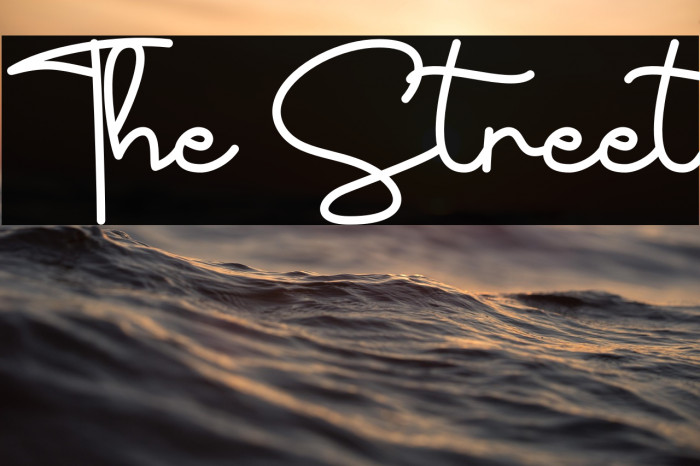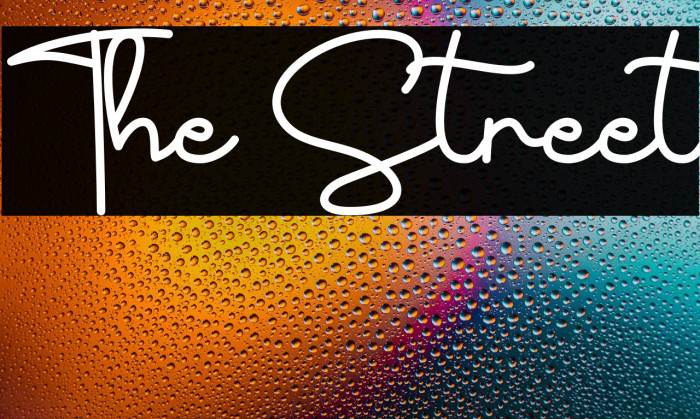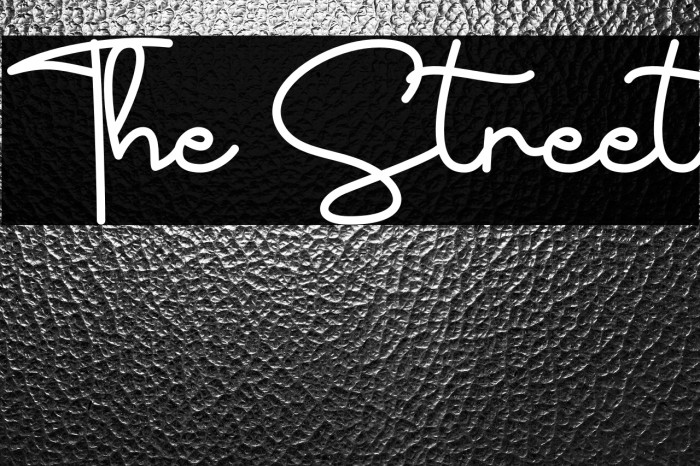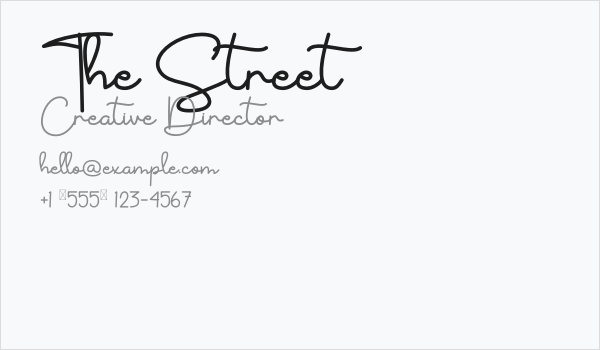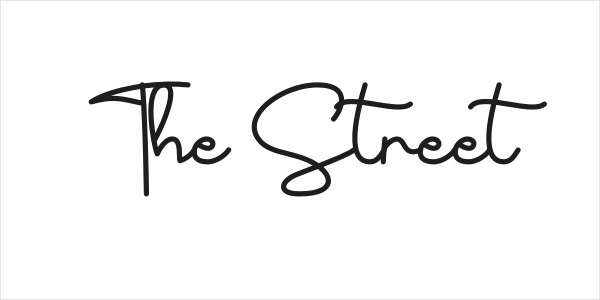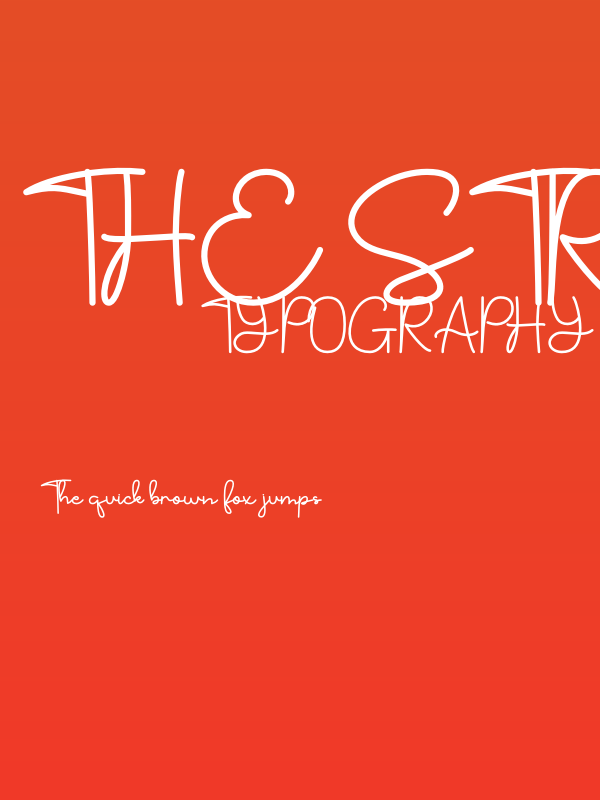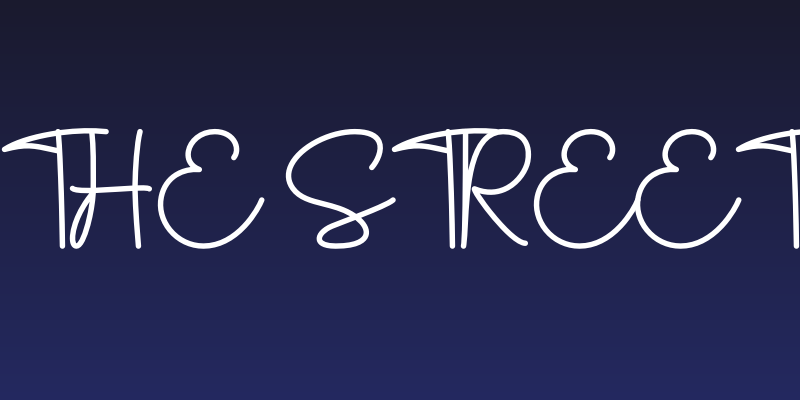
The Street Font
The Street Description
This font features a playful and casual style, combining elements of both script and sans-serif characteristics. The uppercase letters are tall and narrow with a slight slant, giving them a whimsical appearance. The lowercase letters are more fluid and connected, resembling a handwritten script. The numbers are bold and rounded, maintaining the playful theme. Special characters are consistent with the overall style, adding a touch of personality. This font is versatile, suitable for projects that require a friendly and approachable feel.
| Proposed Projects | Ideal for greeting cards, children's books, casual branding, and social media graphics. |